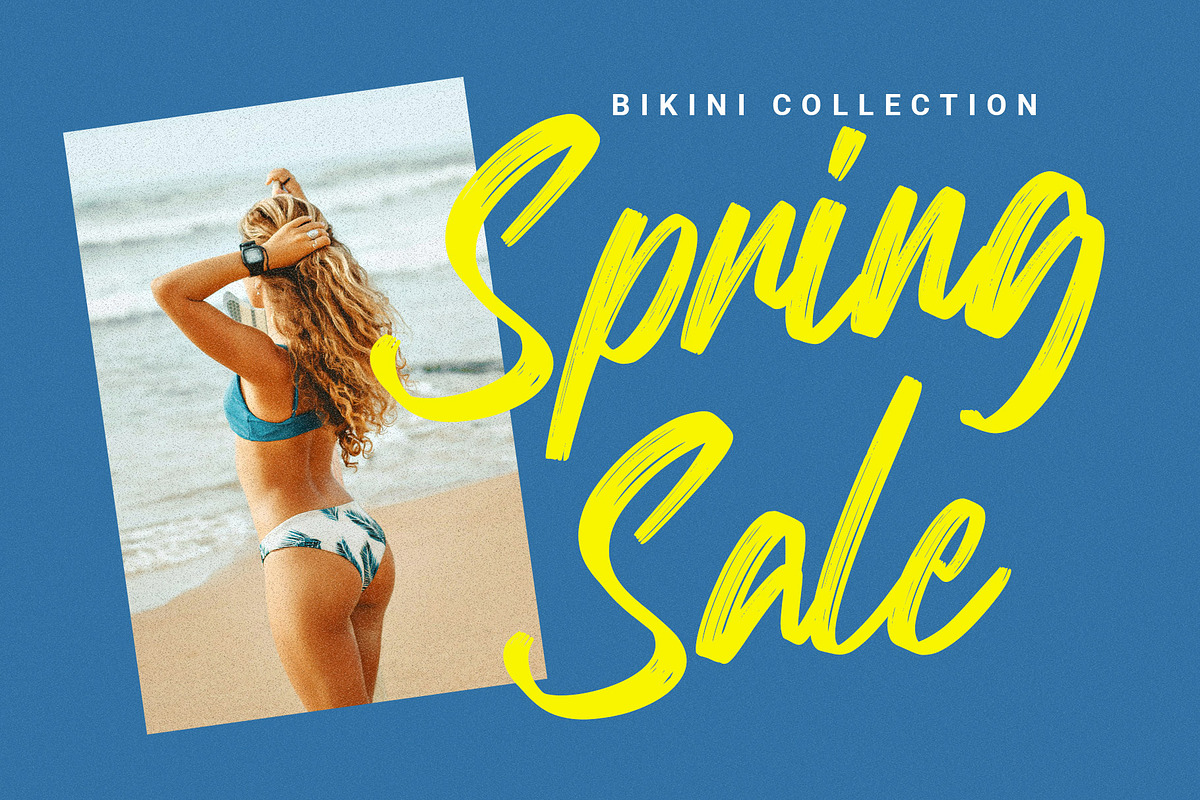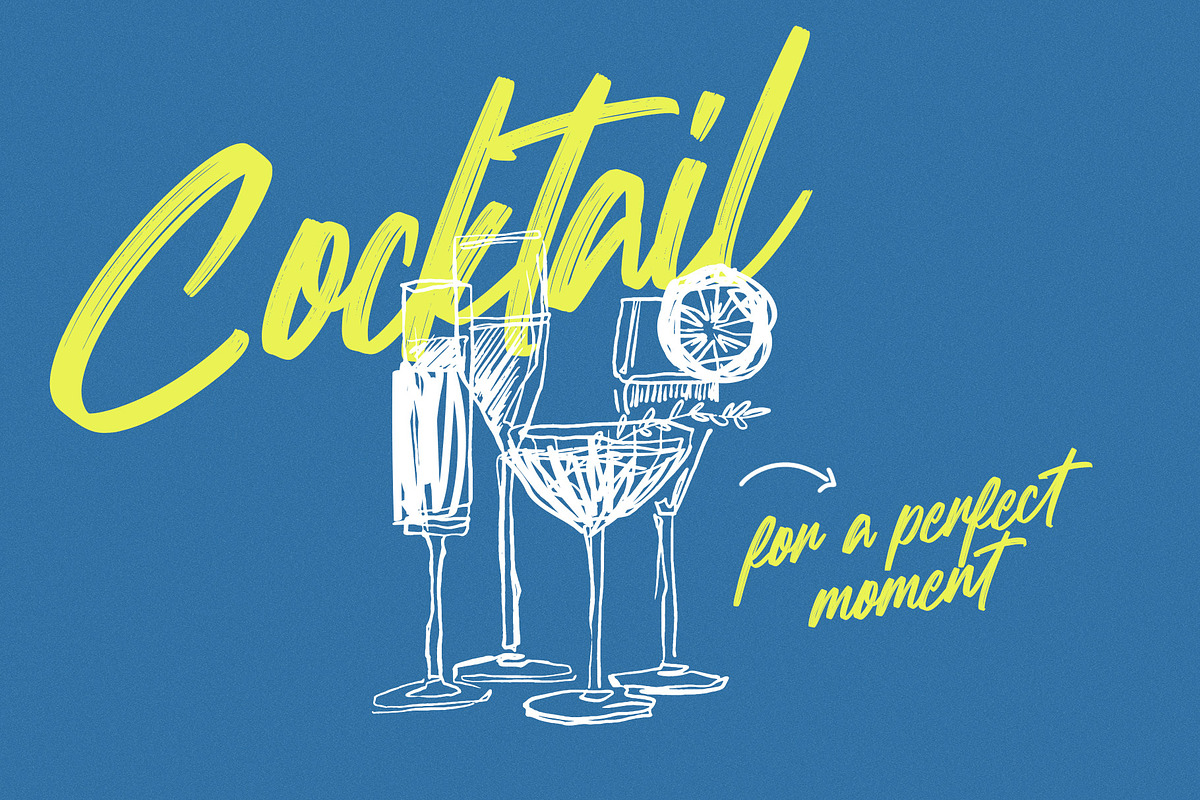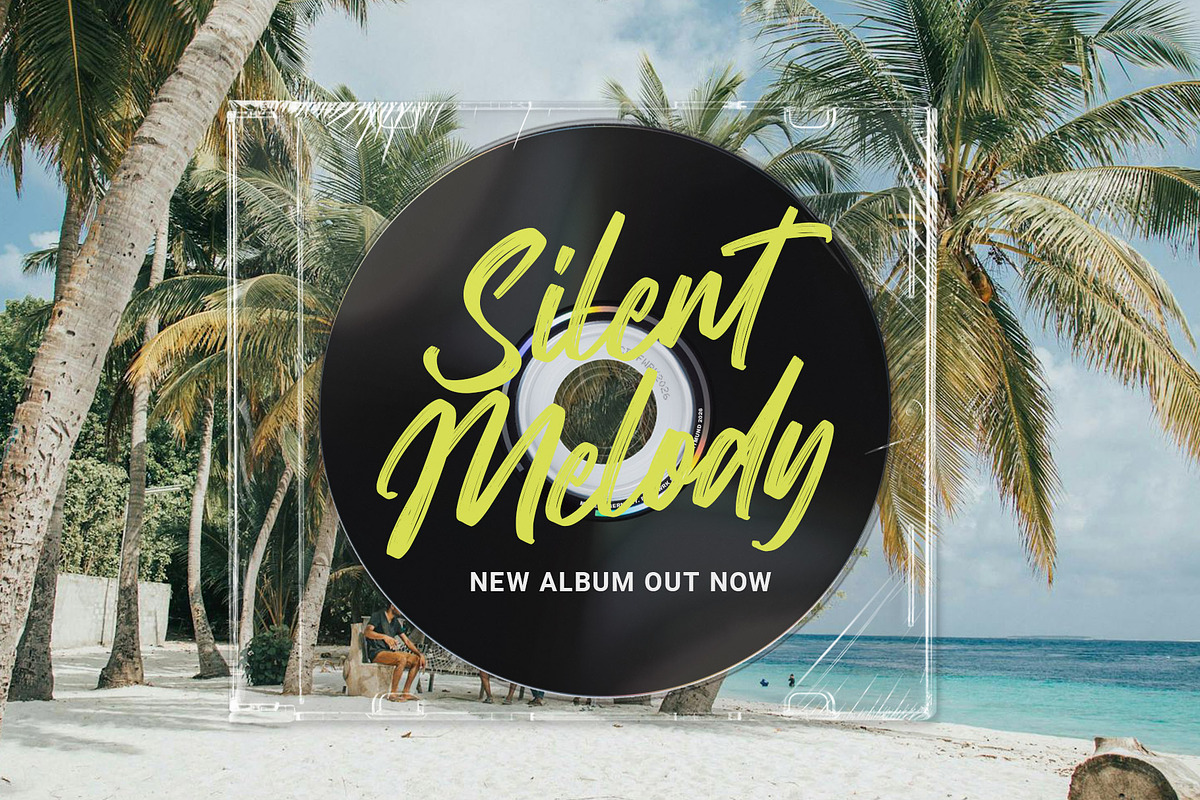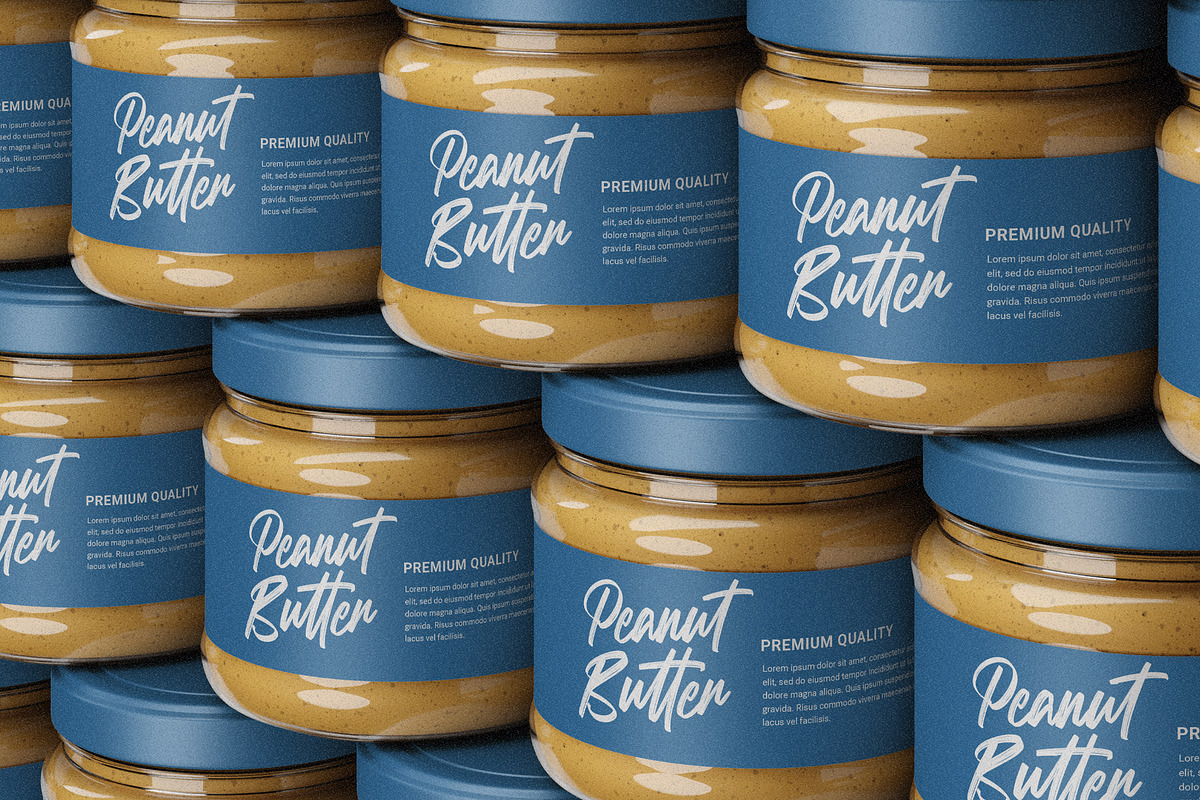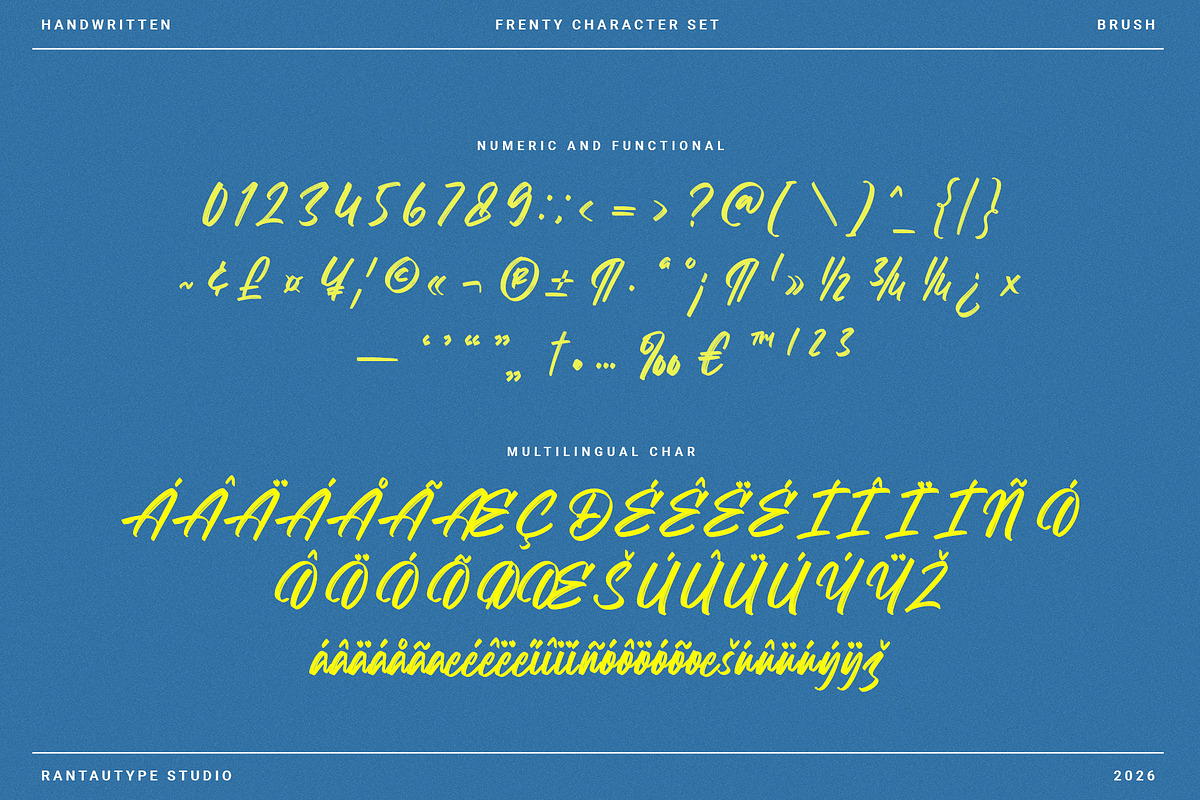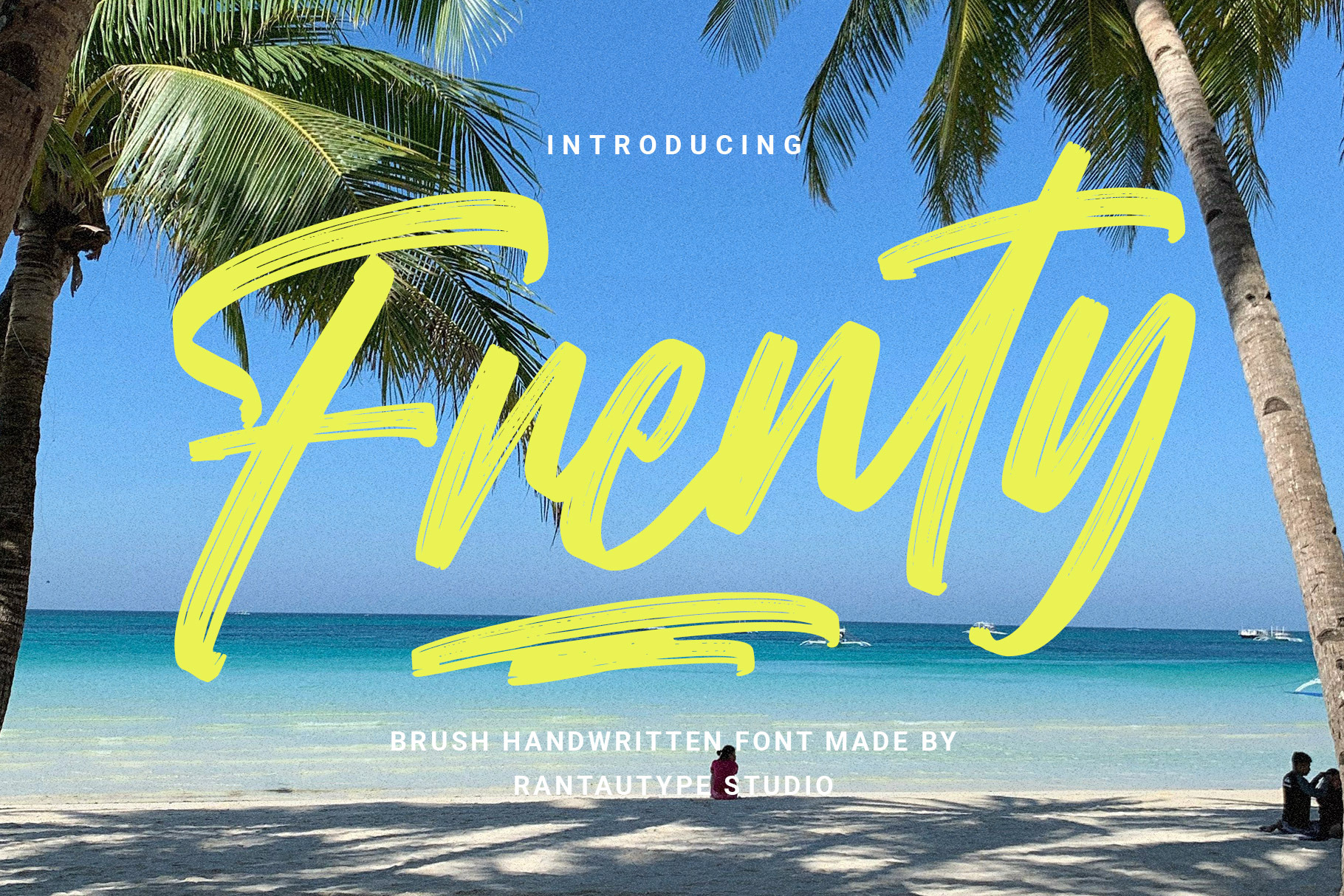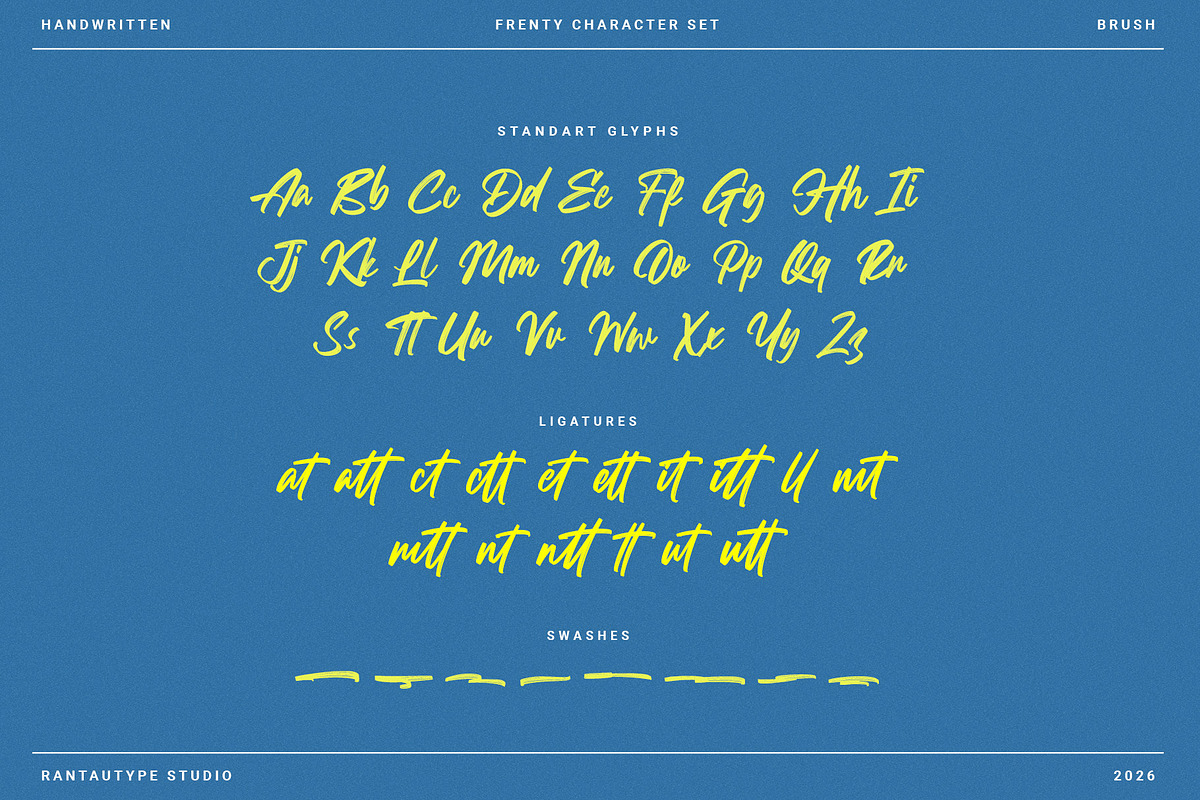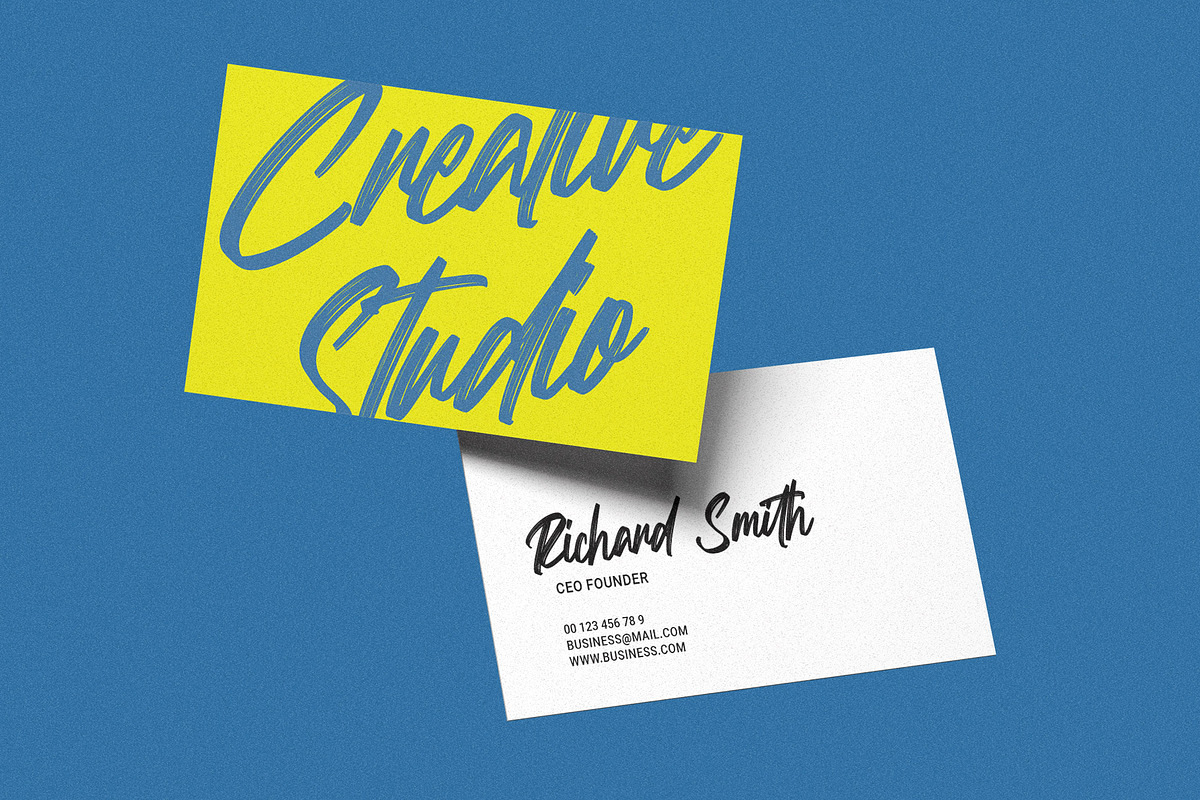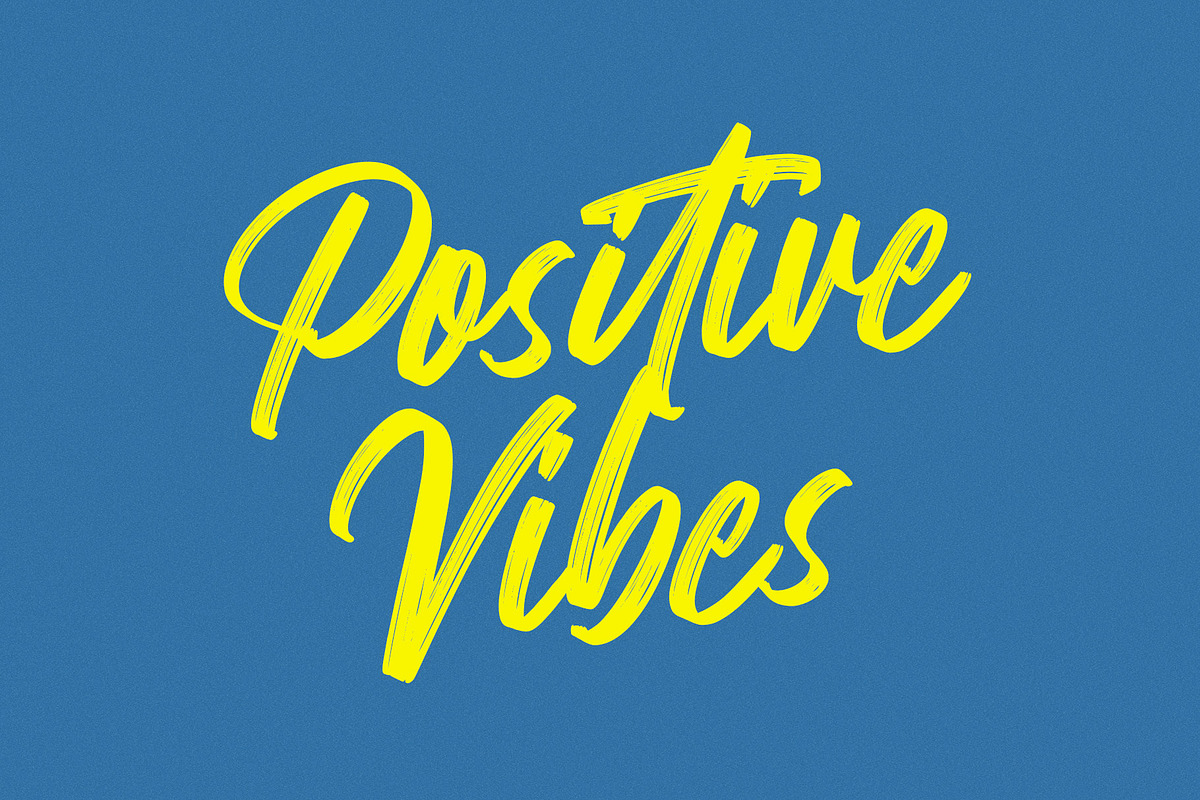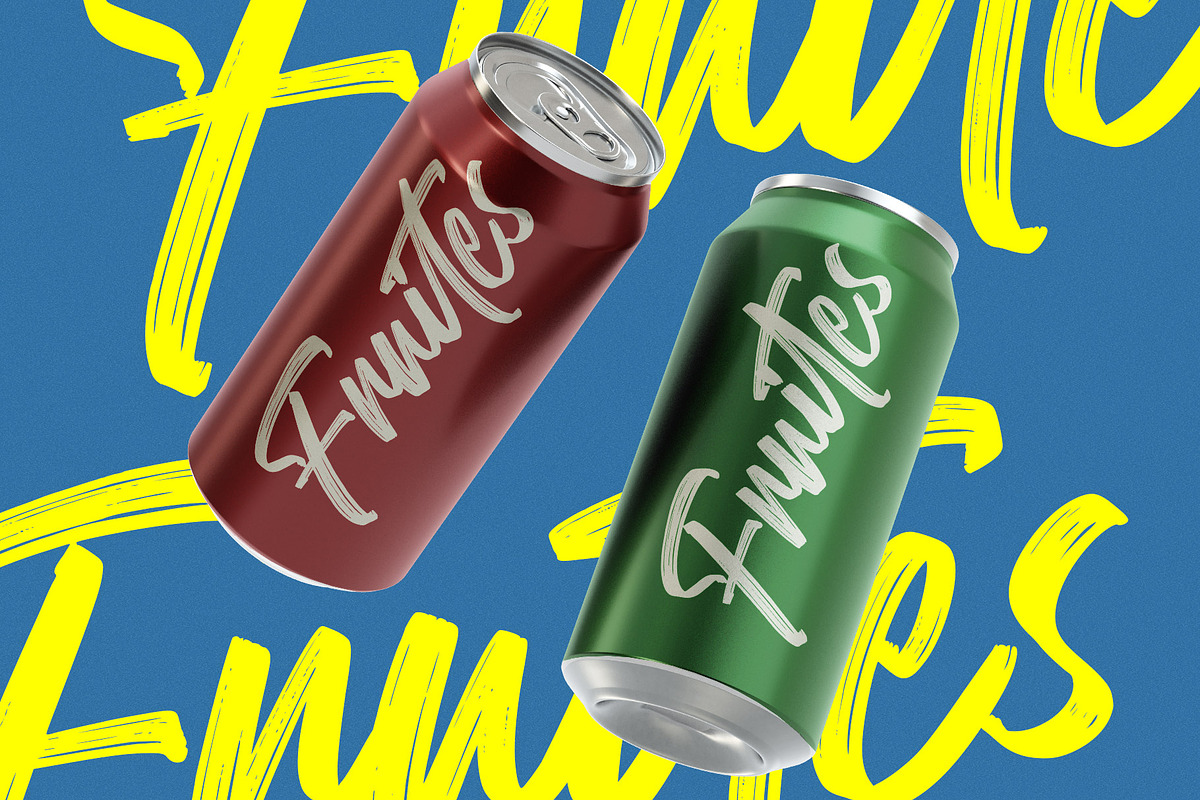
Frenty A Handwritten Brush Font
Frenty is handwritten brush font inspired by the movement of a real brush on paper, this typeface captures the expressive flow, textured strokes, and organic imperfections that make handwritten typography feel authentic and personal.
Frenty come with confident and strong brush character. Harca is a perfectly choice for any creative endeavor, creating, modern, lifestyle design such as logotype, title, cover, branding, invitations, wedding designs, display and magazine, social media posts, advertisements, printed quotes, product packaging, corporate brand, product designs, labels, photography, watermarks, special events and any other project with modern touch.
Standart Glyphs
Numberial and Functional
Alternate and ligature